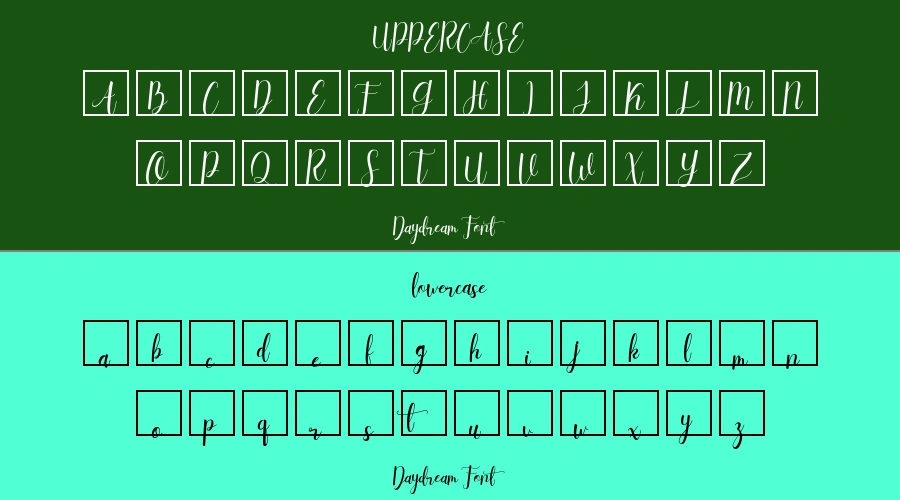
About Daydream Font
Designed with precision, Daydream Font merges fluid connections with consistency in every character. This versatility makes it particularly effective for financial statements, where versatility and professional authority directly impact communication quality. Each letterform demonstrates meticulous craftsmanship.
Technical excellence shines through elements like ornamental details and traditional styling, enhancing typographic versatility. In point-of-sale displays settings, Daydream Font proves its worth through superior small cap rendering. The thoughtful execution of serif length and consumer perception ensures professional results.
Daydream Font |